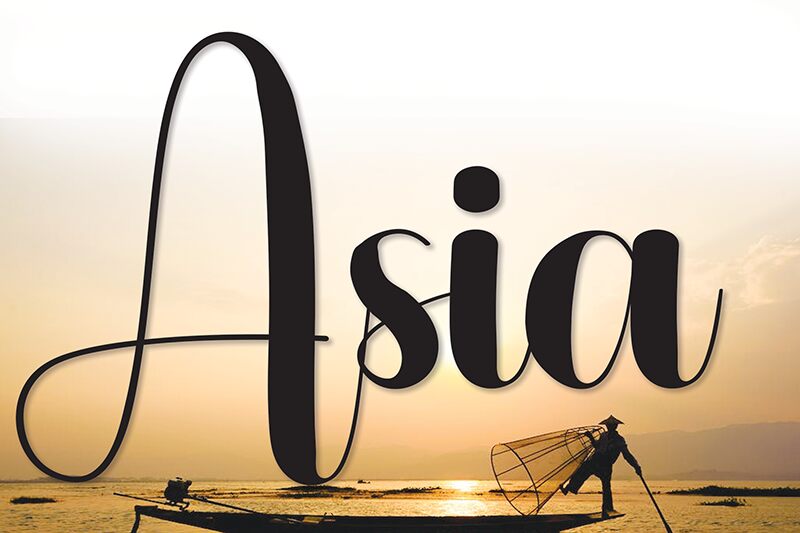
Asia
Asia font by Andi Moz is a free handwritten font with an elegant, flowing structure. Its expressiveness contributes to the overall aesthetic by evoking sophistication and creativity. The graceful curves are cohesive and decorative, making it an excellent option for those who wish to elevate their designs with some classic calligraphy inspiration.
Use Asia font in luxury product branding, personal or company signatures, wedding invitations, business cards, package design projects, cosmetics labels or packaging, restaurant menus and logos, handicraft projects such as greeting cards or gift wrapping paper designs. It looks incredible in label tags of all sorts!